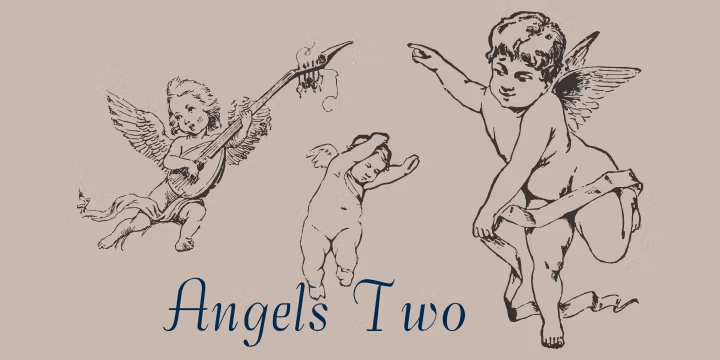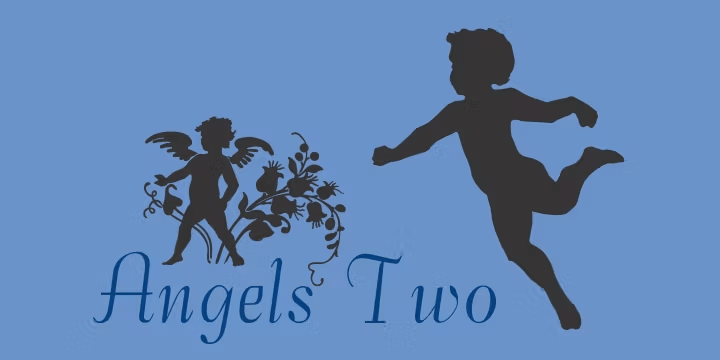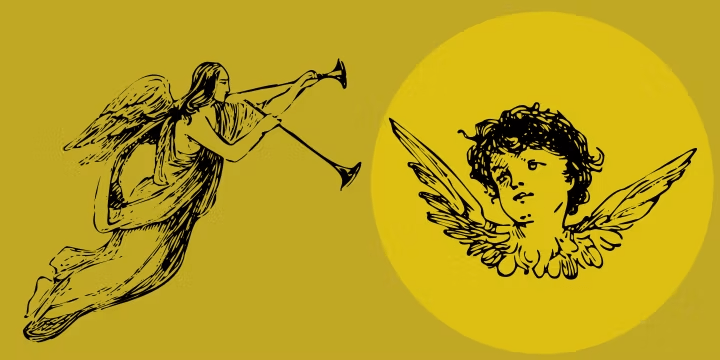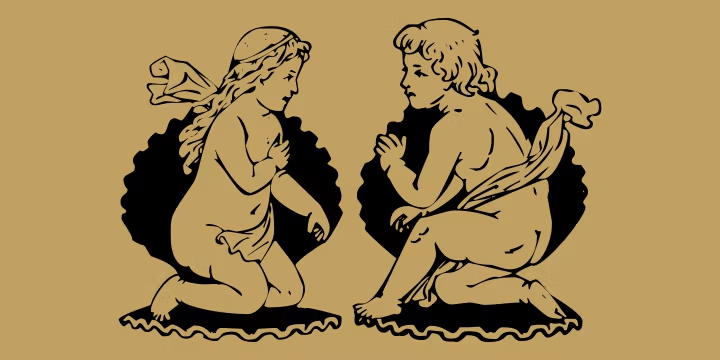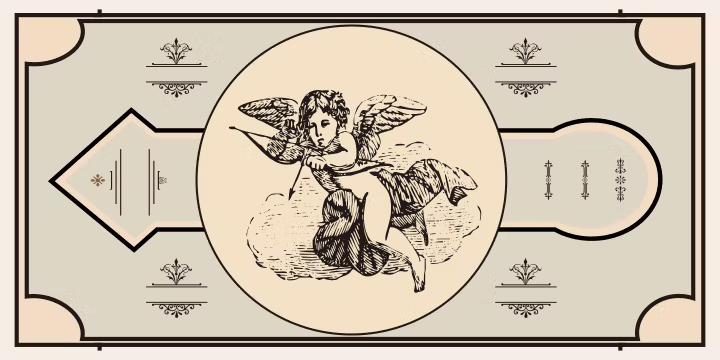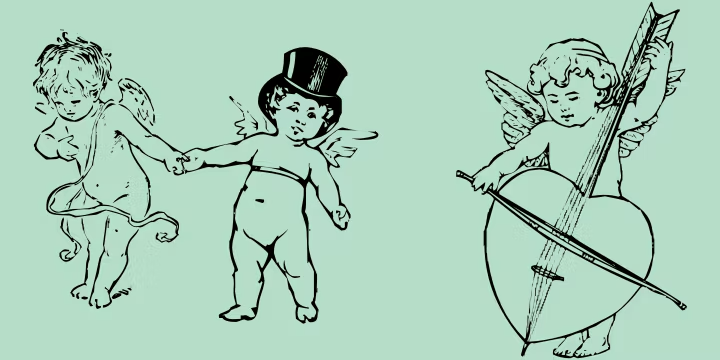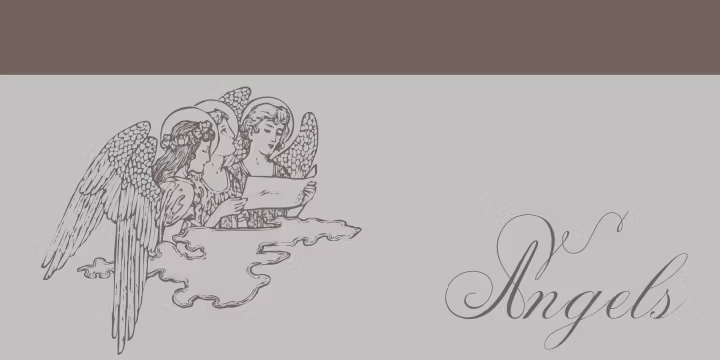
Angels
Angels is a decorative dingbat font family built around angel and cherub imagery, giving it a whimsical, heavenly, and lightly vintage feel. Created by Intellecta Design, it offers a playful way to bring symbolic illustration into your type toolkit without feeling overly formal.
The family includes 2 styles: Angels and Angels Two. With its collection of angelical, religious, and childlike motifs, this set is especially useful for holiday pieces, faith-based projects, invitations, greeting cards, crafts, classroom materials, and other display work that benefits from ornamental accents.
If you are looking for decorative elements with a soft, imaginative character, this family gives you an easy way to add cherubins, heavenly symbolism, and themed embellishment to layouts, packaging, posters, and creative compositions.